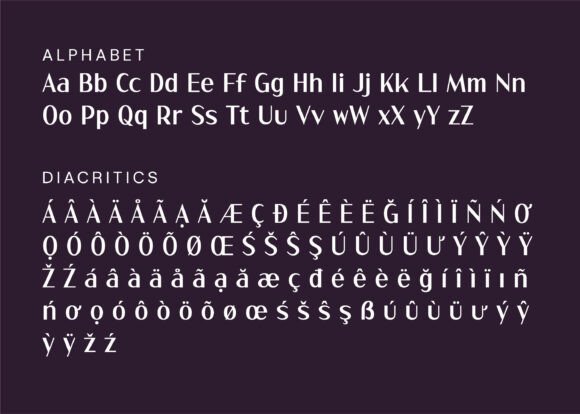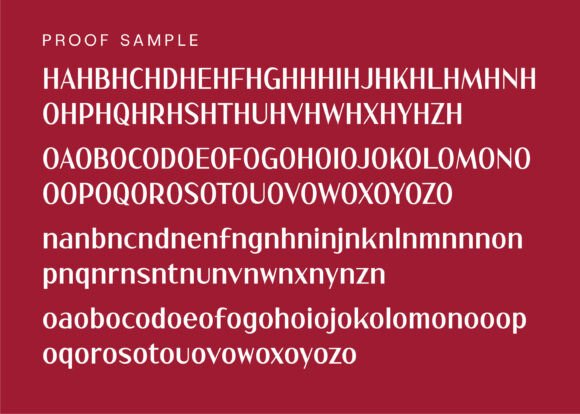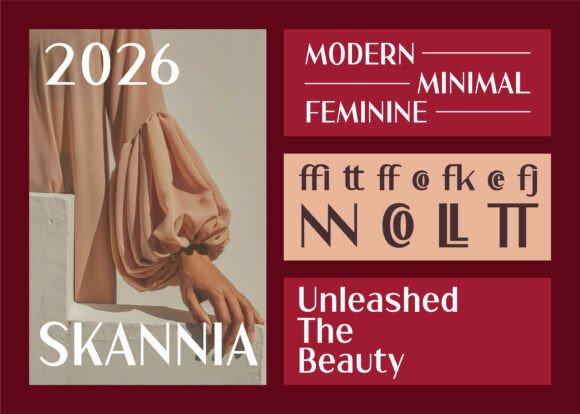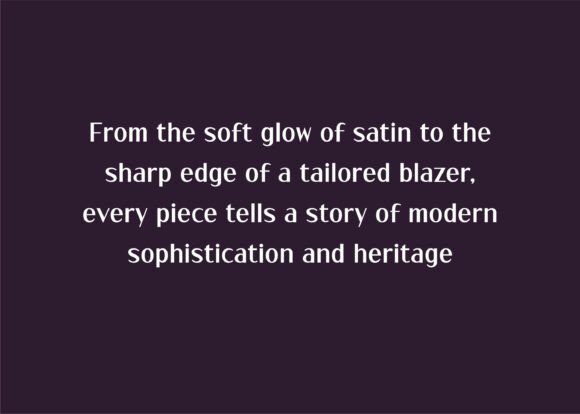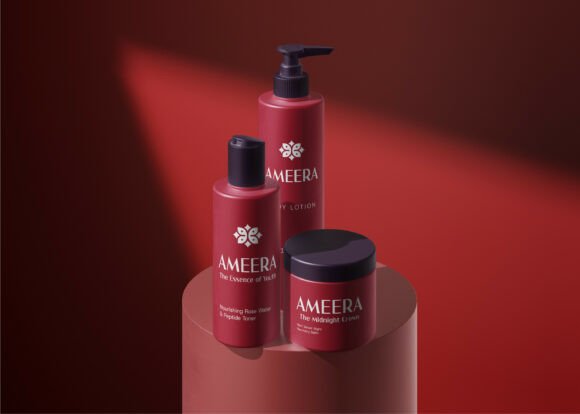
Introduction to Skannia Font Font
Fonts play a crucial role in design, and the Skannia Font font is a typeface that brings both character and versatility to any project. Whether you’re working on a branding project, a website, or a print design, the Skannia Font font offers a unique style that can elevate your work.
a refined sans-serif that balances modern minimalism with a touch of classical elegance.
Its elongated letterforms and high-contrast strokes create a rhythmic, high-fashion aesthetic that feels both airy and authoritative Designed for those who appreciate clean lines with a high-end editorial flair, Skannia is perfect for luxury branding, chic social media layouts, and minimalist digital products.
Key Features of Skannia Font Font
Why Choose Skannia Font Font?
The Skannia Font font is more than just a typeface – it’s a design tool that helps you communicate your message with style and clarity. Its unique character set and versatile design make it suitable for a wide range of applications, from elegant invitations to bold headlines.
With its carefully crafted letterforms and balanced proportions, the Skannia Font font ensures readability and visual appeal across all mediums.
What makes Skannia Font font special?
The Skannia Font font stands out with its unique design, exceptional readability, and versatility across various design applications.